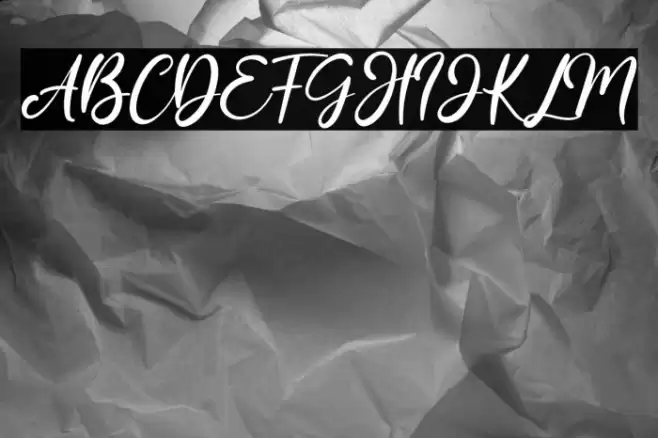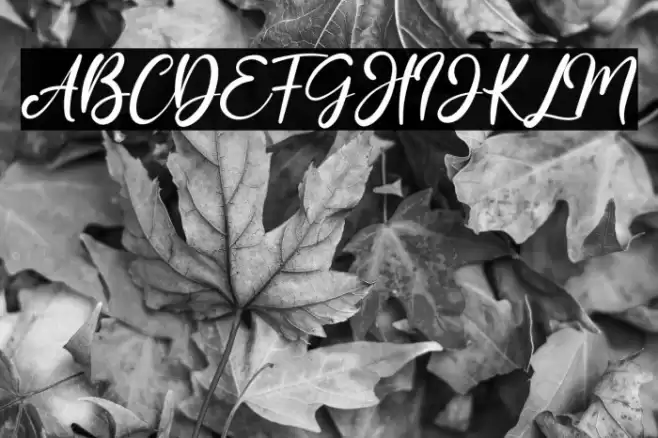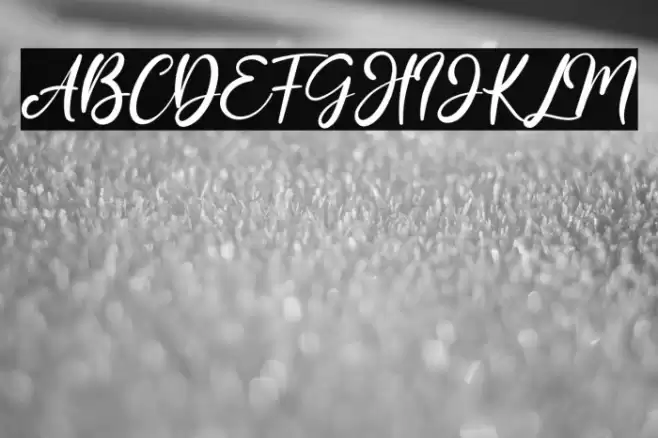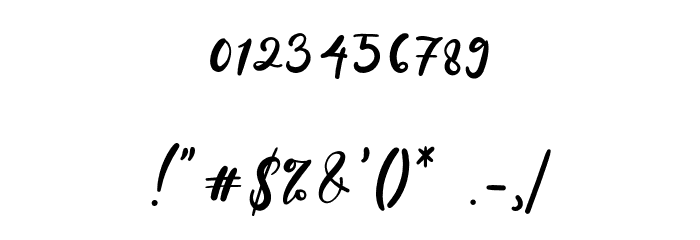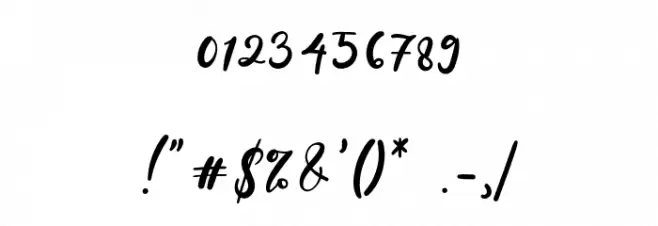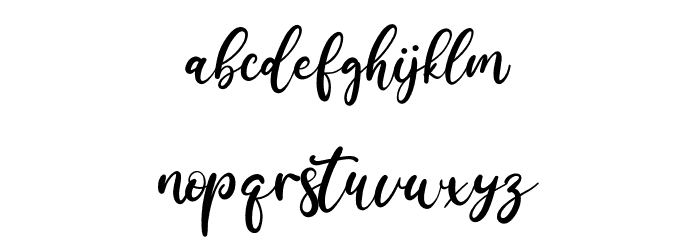
Amellis Path Font
Amellis Path Description
This font features a flowing, cursive style that exudes elegance and sophistication. The letters are interconnected with smooth, sweeping strokes, creating a sense of fluidity and movement. The uppercase letters are bold and prominent, while the lowercase letters maintain a consistent rhythm and balance. The numerals are designed with the same graceful curves, ensuring uniformity across all characters. Special characters are crafted with attention to detail, complementing the overall aesthetic. This font is ideal for projects that require a touch of class and refinement.
A flowing, elegant cursive font with interconnected strokes from Uncategorized fonts.
- Proposed Projects: Ideal for wedding invitations, elegant branding, greeting cards, and upscale packaging.
- Overall Style: Elegant
- Use Case: Logos, Invitations, Branding